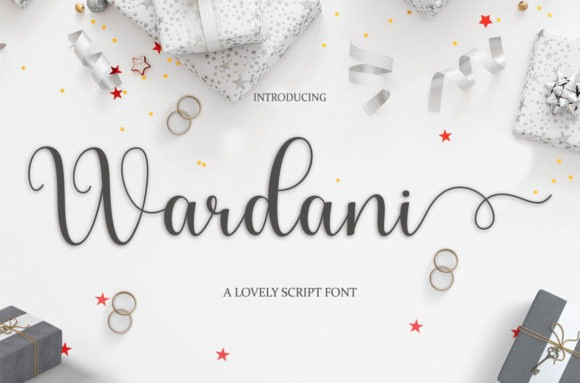
Wardani Font
Wardani Font is a dazzling script font. This font is neatly crafted and highly detailed. Wardani Script is PUA encoded which means you can access all glyphs and swashes with ease!